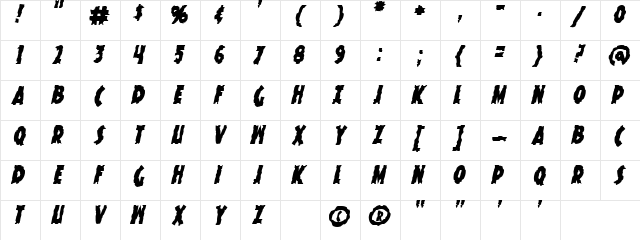
Knuckle Sandwich Krunchy is a composed and adaptable typeface that performs quietly and consistently across a wide range of design contexts. The slanted form adds forward momentum and visual energy.
Pro Tip: Use Knuckle Sandwich Krunchy for emphasis, pull quotes, and subheadings where its slanted energy can add rhythm to the layout.